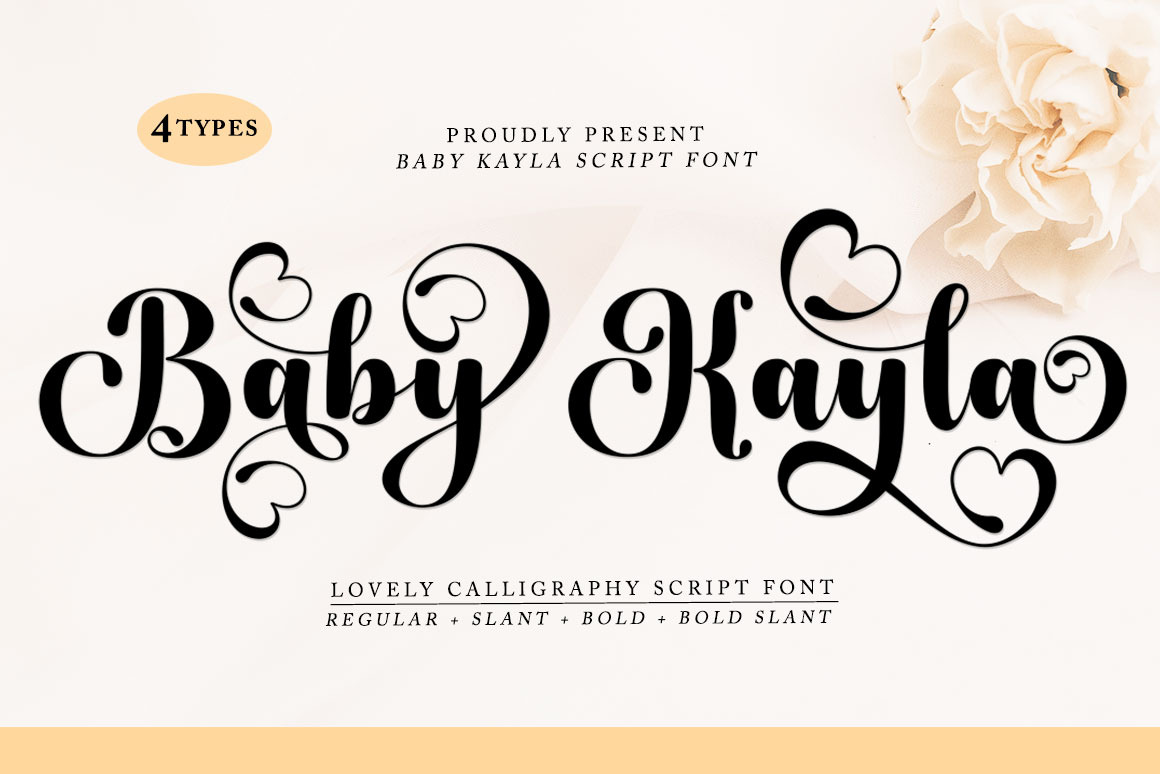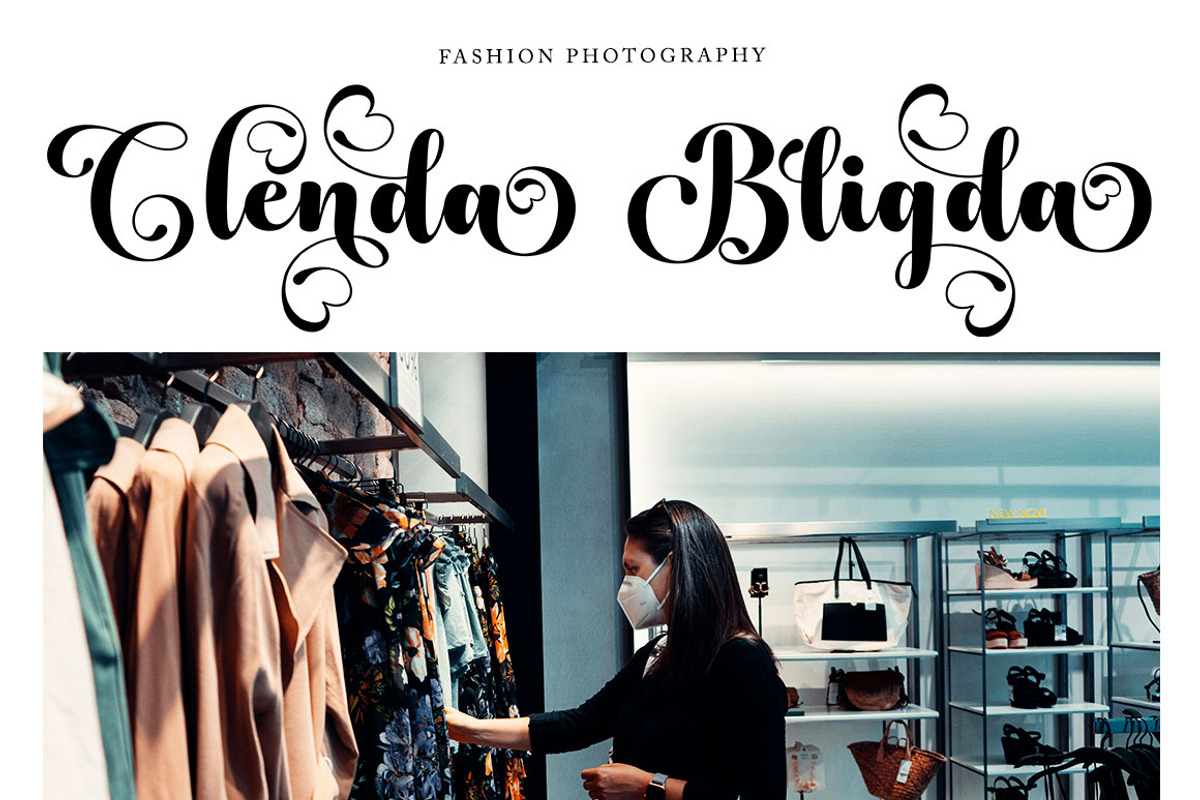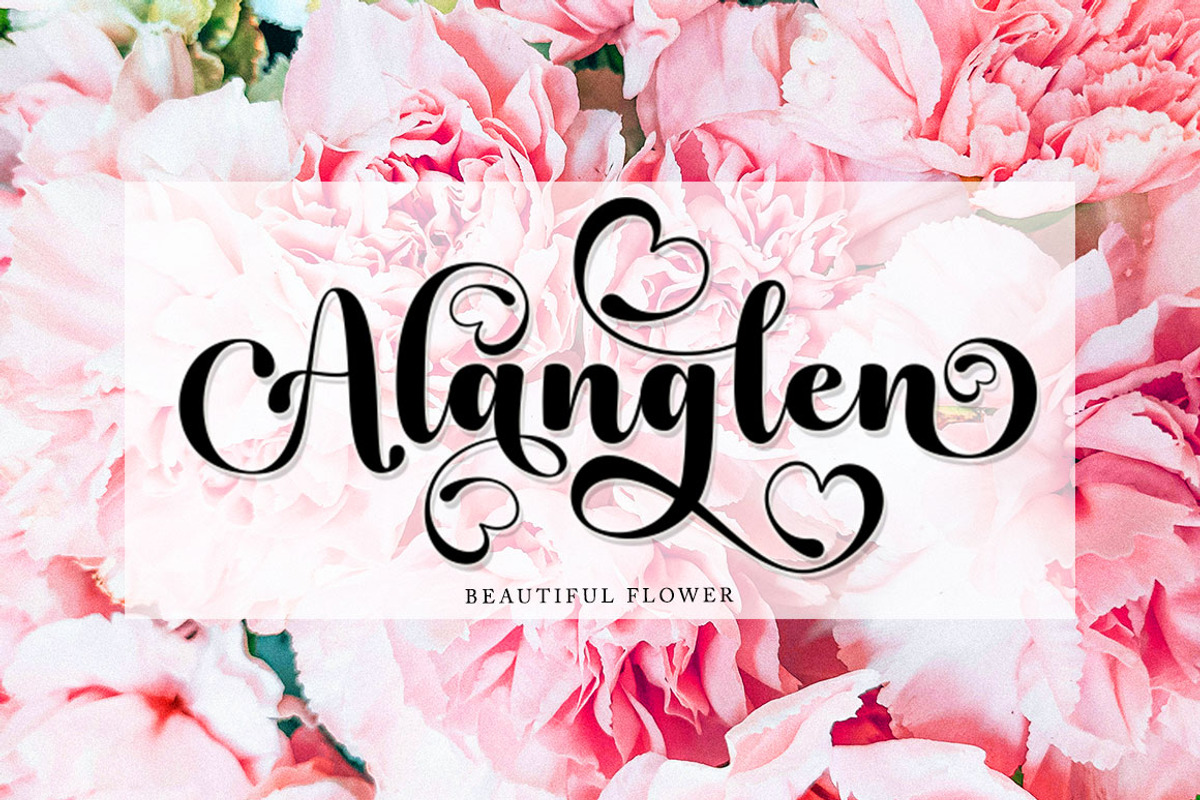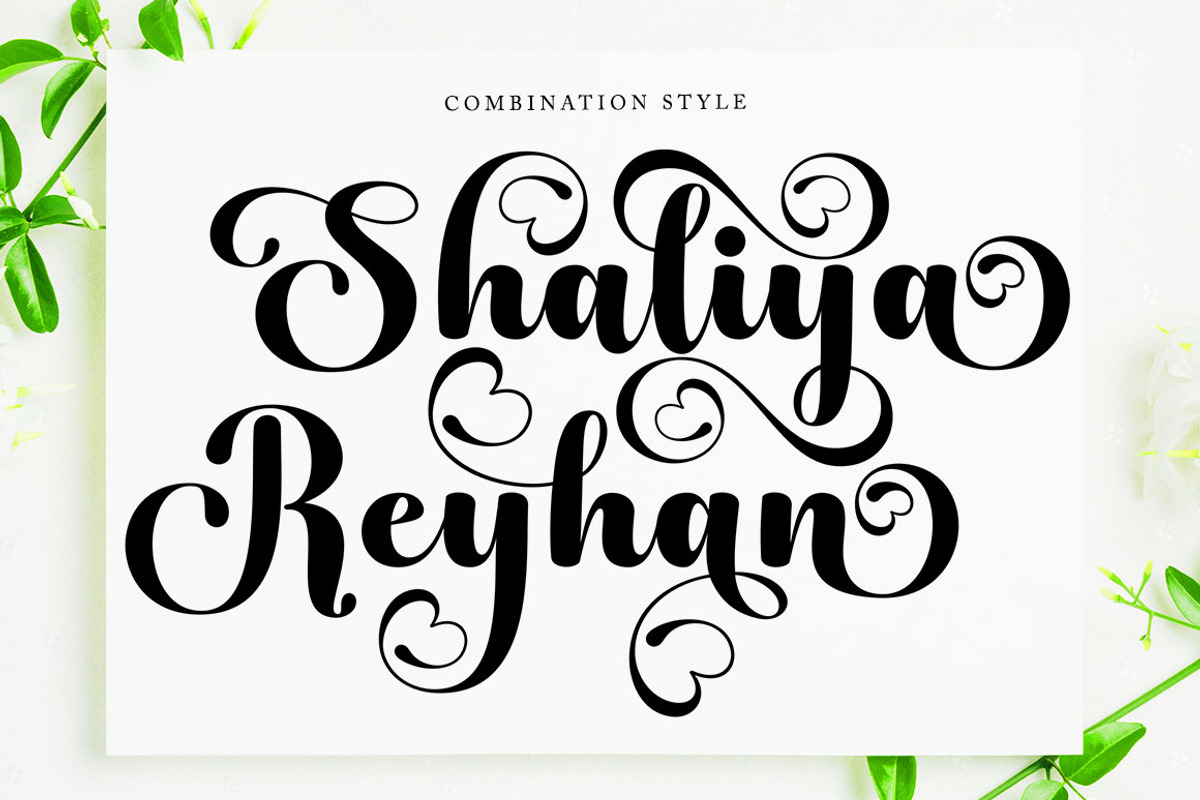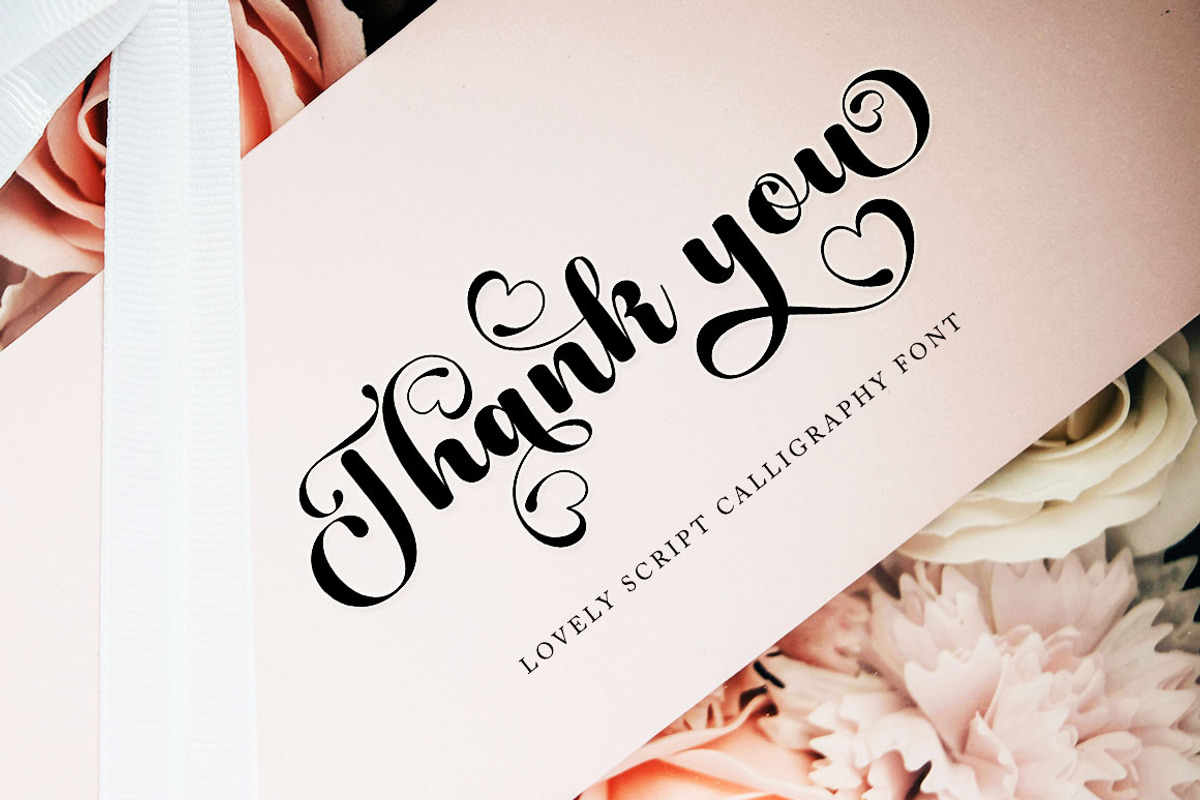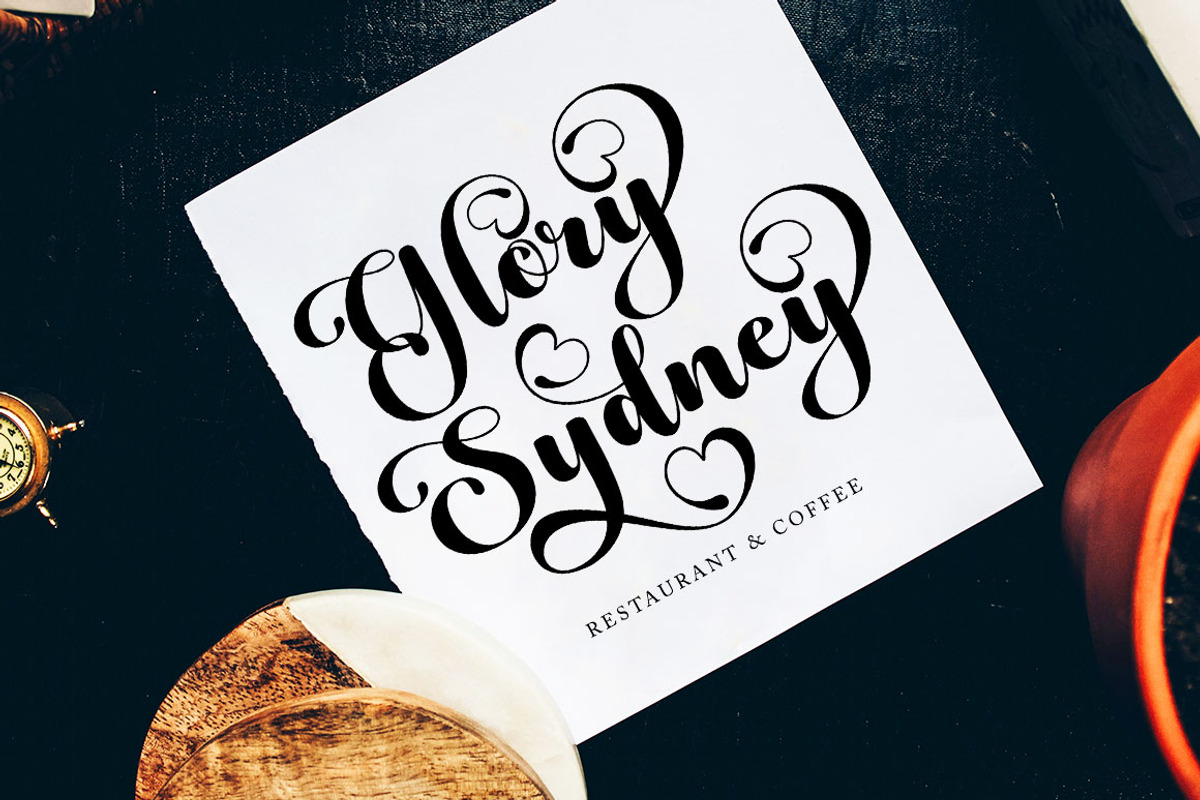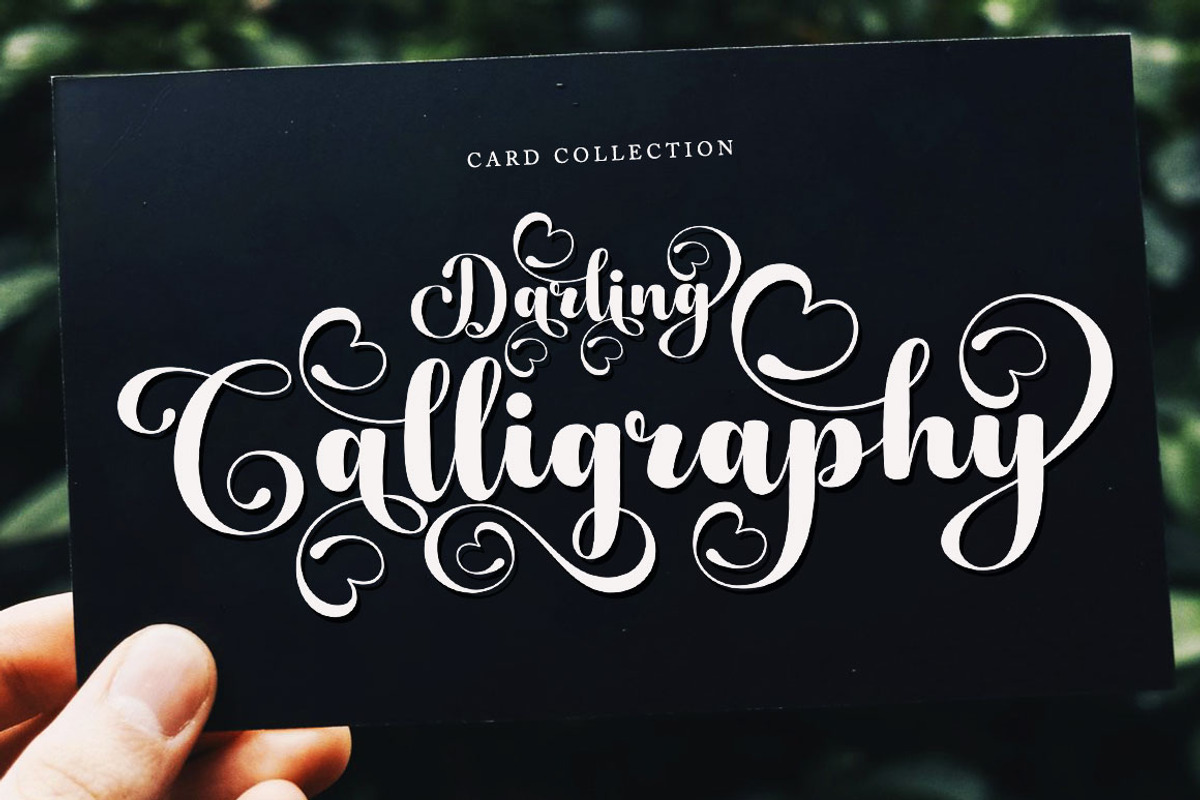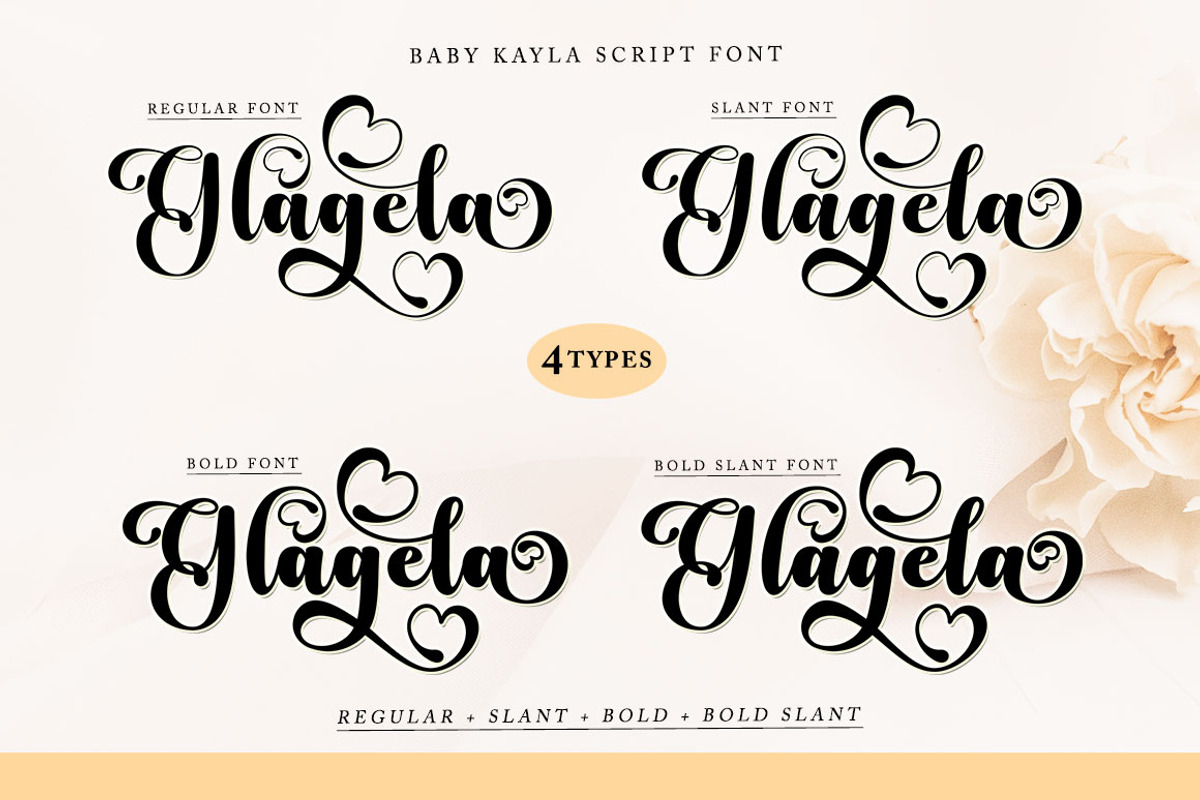
Baby Kayla Script Font
Baby Kayla is a very elegant, beautiful and cute script font. Its love-centric look makes it perfect for use in all your best design projects. Expertly designed to be a true favorite, this font has the potential to take your creative ideas to the next level! This font is PUA coded which means you can easily access all the glyphs and strokes!
Baby Kayla is appealing because it is sleek, clean, feminine, sensual, glamorous, simple and very readable, thanks to its luxurious letter connections. I also offer a number of alternate styles for all the letters. The classic style is perfect for applying in various formal forms such as invitations, labels, restaurant menus, logos, fashion, makeup, stationery, novels, magazines, books, greeting/wedding cards, packaging, labels or any type of advertisement. for your needs. . . . . . . .
Features: Lowercase letters at the beginning and end of the swash
4 types
Contains a complete set:
- Uppercase - Lowercase - Alternate - Punctuation - Numbers - Multilingual support.